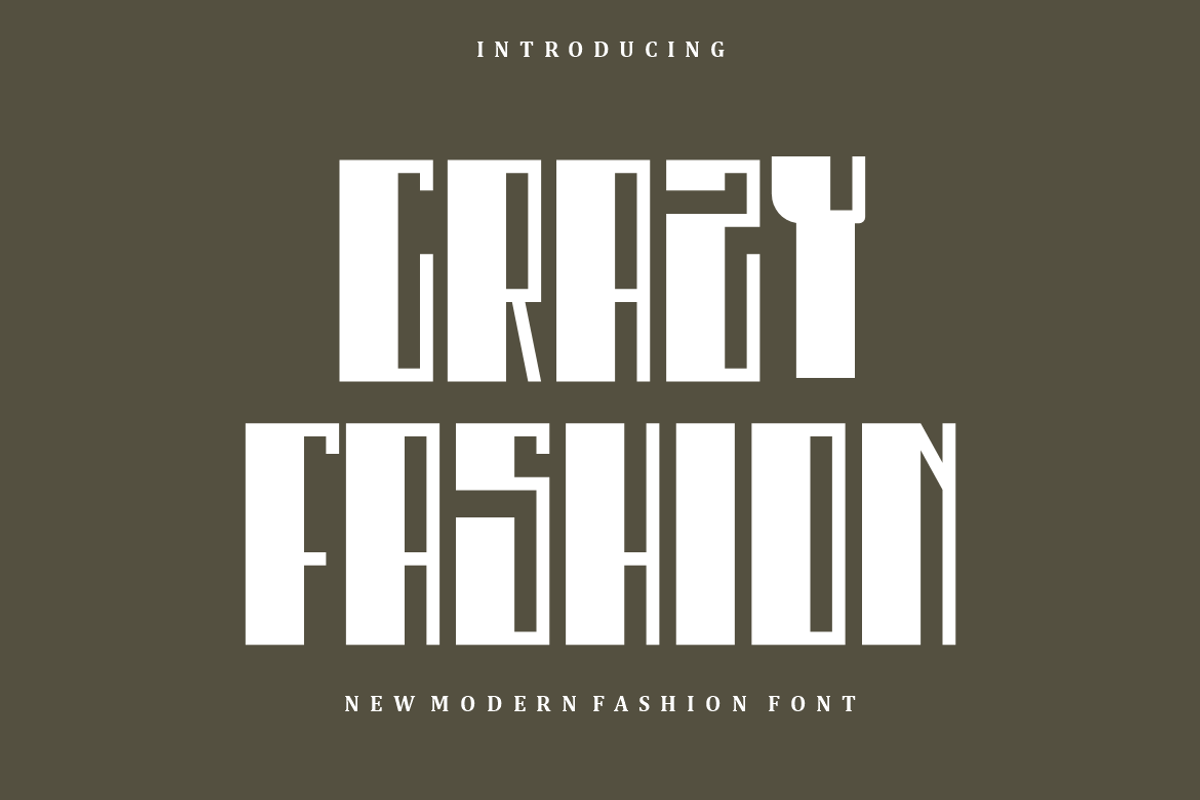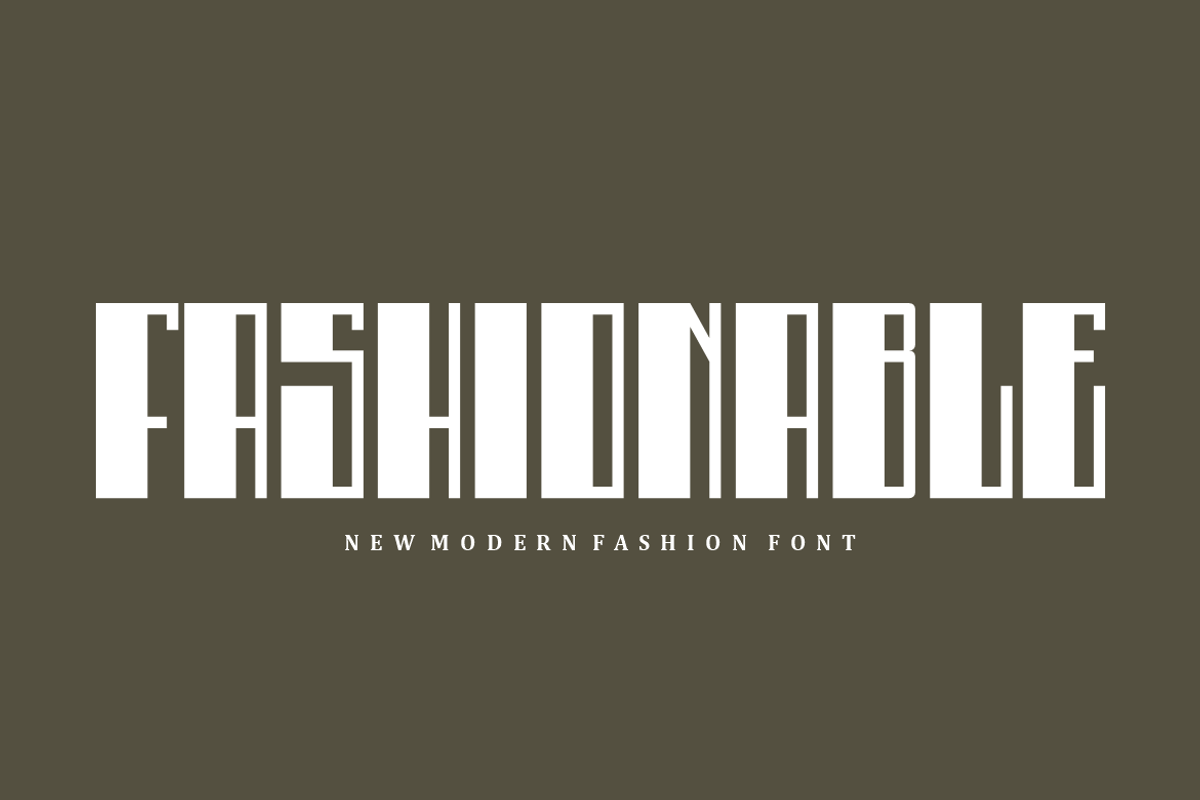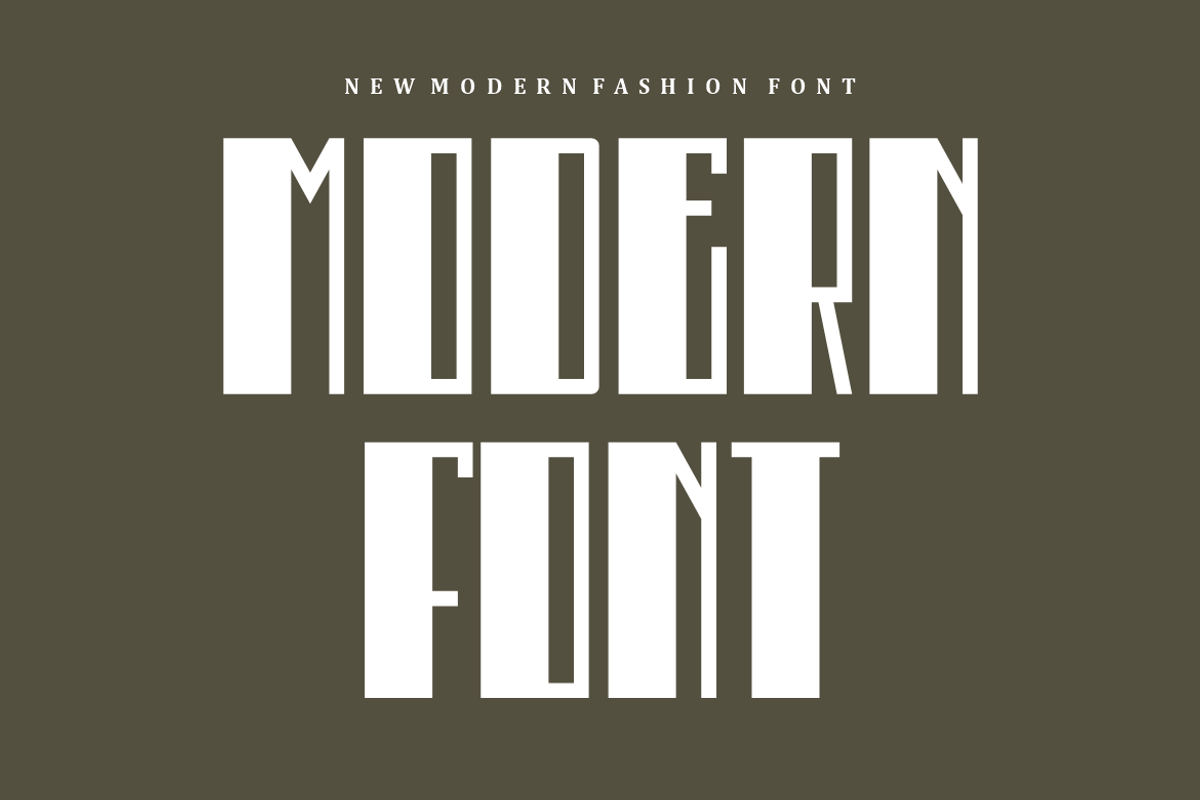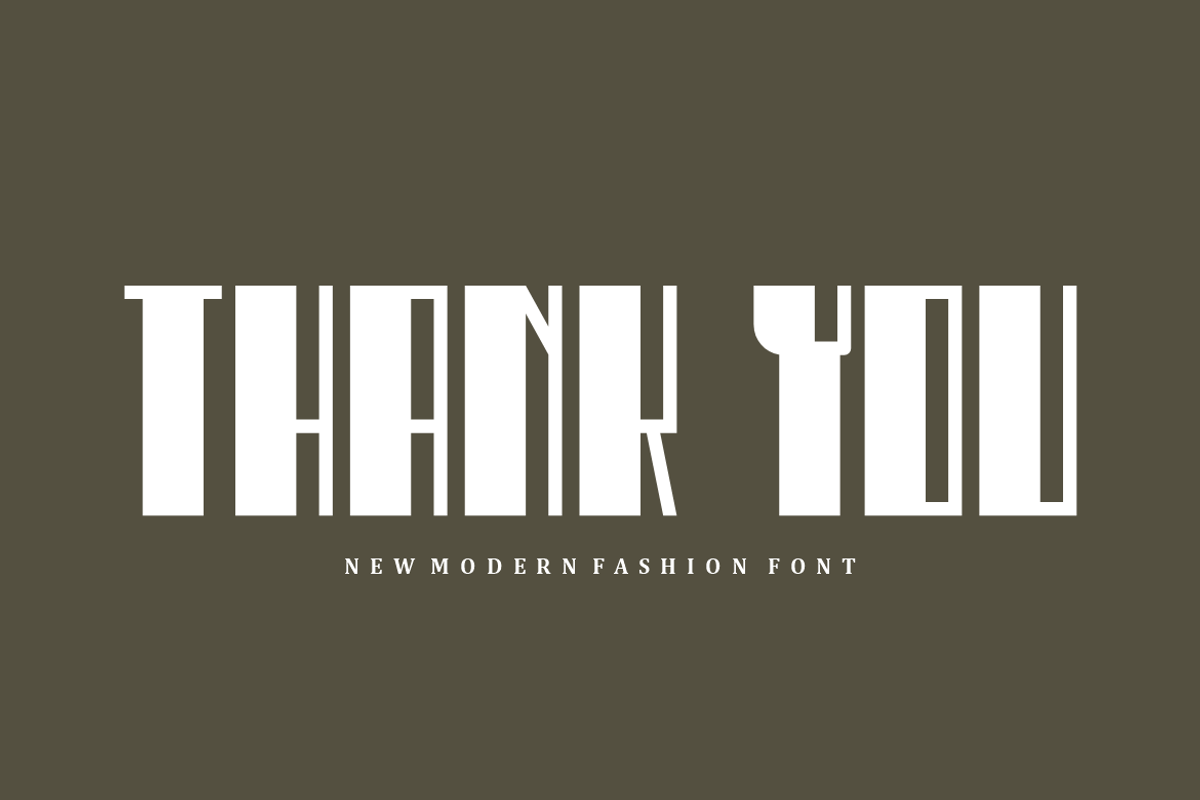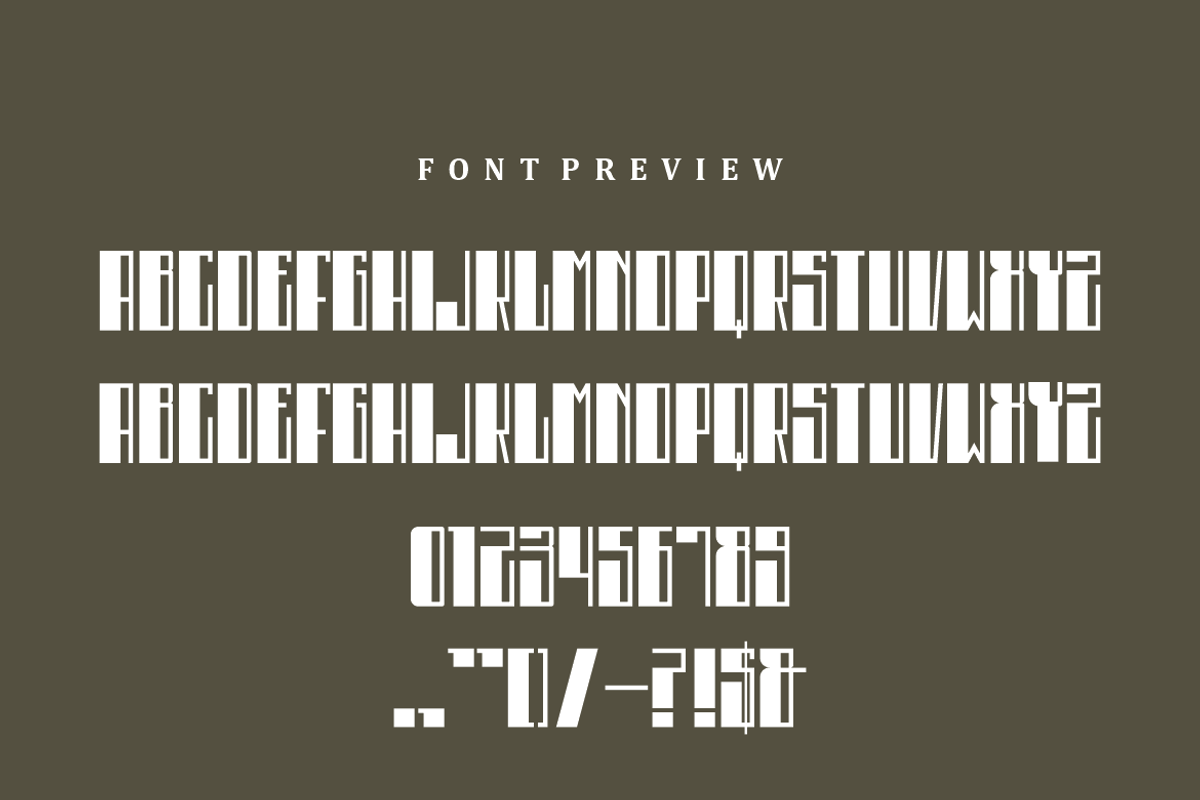
Crazy Fashion - Font
- Modern Font is a bold and authentic display font. The font is suitable for any branding project like logo, t-shirt printing,, and many more. outstanding in a wide range of contexts.